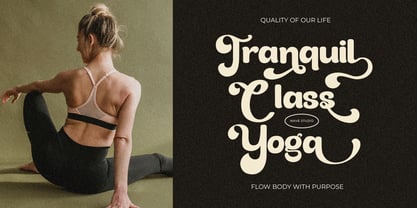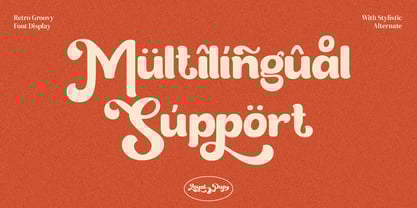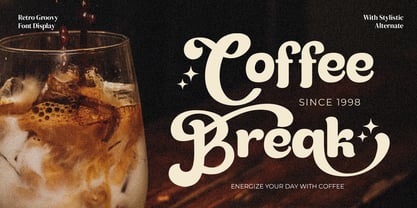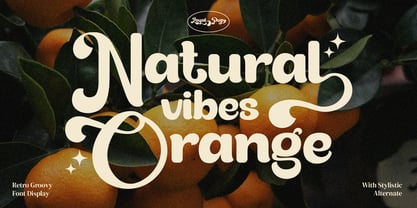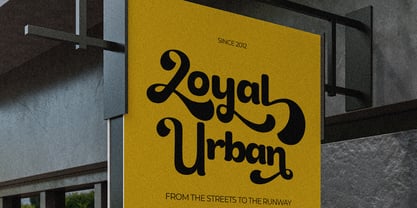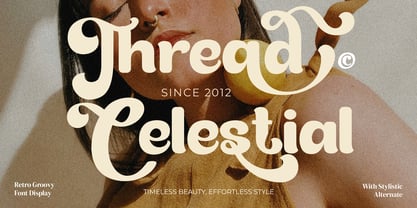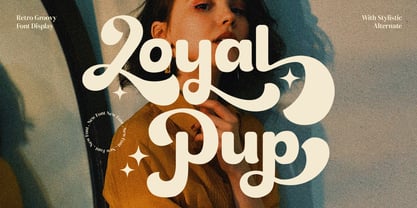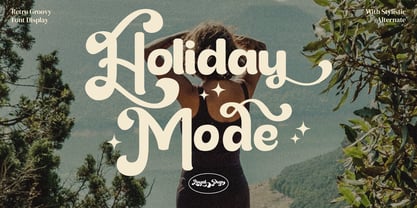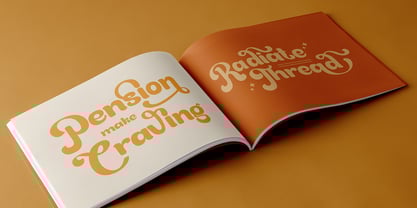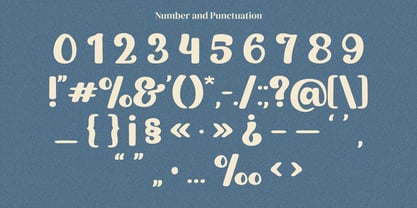
Loyal Pup
by Inviline
The Loyal Pup Font Family was designed by Virgiawan Listanto and published by Inviline. Loyal Pup contains 1 styles. More about this family
Loyal Pup is a retro groovy font full of personality and bold curves — perfect for branding, summer posters, packaging, or anything that needs a nostalgic, cheerful vibe. What you get is a complete font with uppercase, lowercase, numbers, punctuations, stylistic alternates, and multilingual support, making it a perfect font for logos, headlines, t-shirts, album covers, or creative titles that want to stand out with retro charm.
Designers: Virgiawan Listanto
Foundry: Inviline